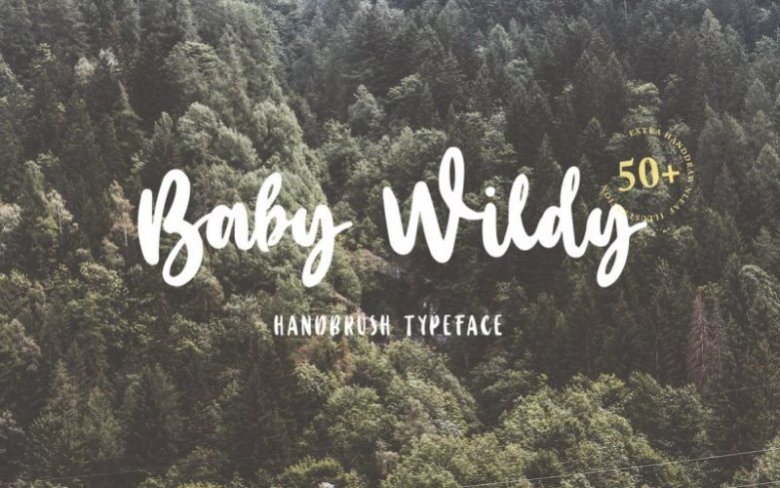
Baby Wildy Handwritten Font
Baby Wildy is a handdrawn bold calligraphy font script, they have a verry handwritten character inspired by modern calligraphy style.
Baby Wildy come with one font style, but if you’re use the uppercase letter this font will form a sans character and will look like 2 different fonts.In this package include 50+ extra’s handdrawn leaf